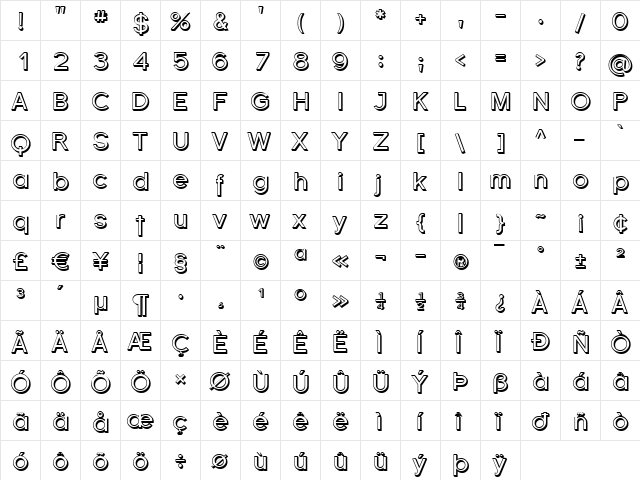
Florencesans Shaded Regular
Design Context for Florencesans Shaded Typeface
Florencesans Shaded offers clean, dependable letterforms without strong stylistic allegiance, making it a practical choice for designers who need flexibility.
Pro Tip: Use Florencesans Shaded in both headline and body roles to test its range before committing to a single application.